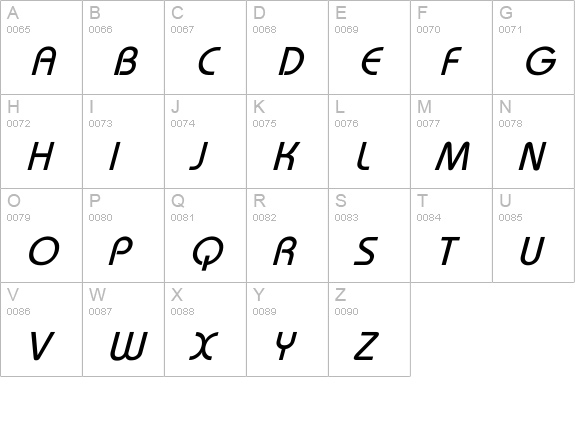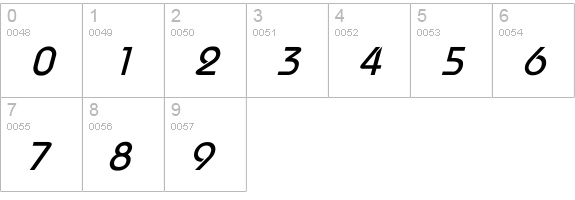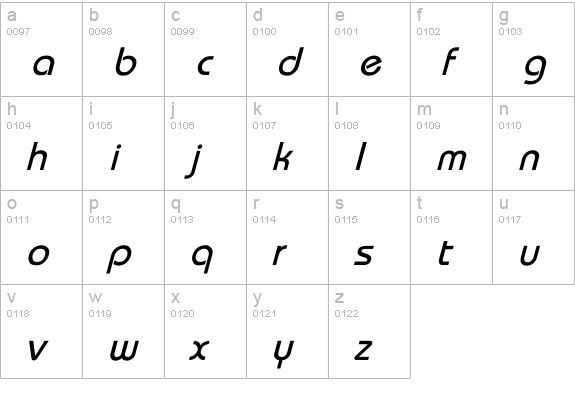
Bauhaus Italic Font Details
Bauhaus Italic is a distinctive, italic variant in the Bauhaus typeface family \xE2\x80\x94 well suited to design and typography projects.
Bauhaus Italic font is a modern and sophisticated typeface that exudes elegance and artistic flair. Its sleek lines and unique design make it perfect for adding a touch of style to any project. The italicized version of the Bauhaus font family brings a sense of dynamism and movement, making it ideal for creating eye-catching headlines, logos, and branding materials. With its clean and minimalist aesthetic, Bauhaus Italic font strikes the perfect balance between classic and contemporary design elements. Whether used in print or digital applications, this font is sure to make a lasting impression. Best of all, Bauhaus Italic font is free to download at FontsMarket.com, making it easily accessible for designers and creatives looking to elevate their work with a touch of sophistication. Don't miss out on the opportunity to enhance your projects with this stylish and versatile typeface.